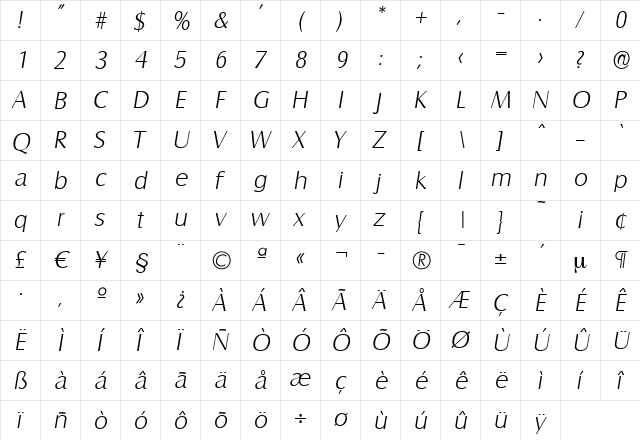
BillyBecker-ExtraLight Italic
Design Context for BillyBecker-ExtraLight Typeface
BillyBecker-ExtraLight is a composed and adaptable typeface that performs quietly and consistently across a wide range of design contexts. The dynamic lean of this cut emphasises speed and emphasis in any layout. Its slender proportions lend an understated elegance to any composition.
Pro Tip: Use BillyBecker-ExtraLight for emphasis, pull quotes, and subheadings where its slanted energy can add rhythm to the layout.